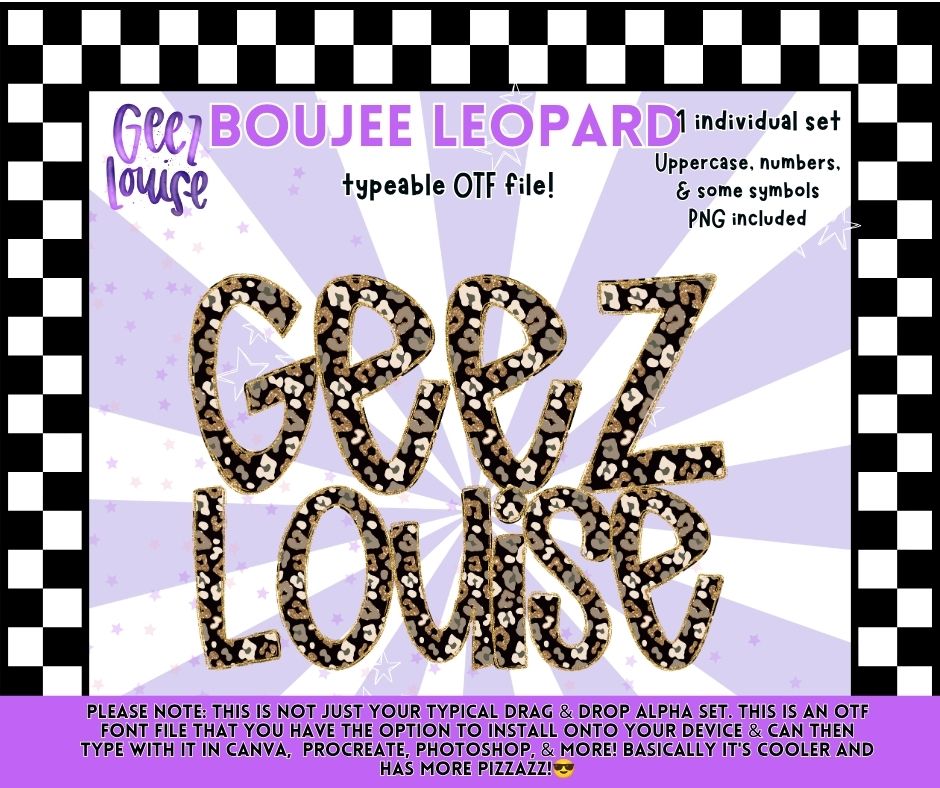
Give your designs a glam upgrade with the Boujee Leopard OTF Font! This stylish alphabet features a classic leopard print with sparkling gold accents and includes a matching PNG alpha set.
- Uppercase Letters
- Numbers
- Select Symbols